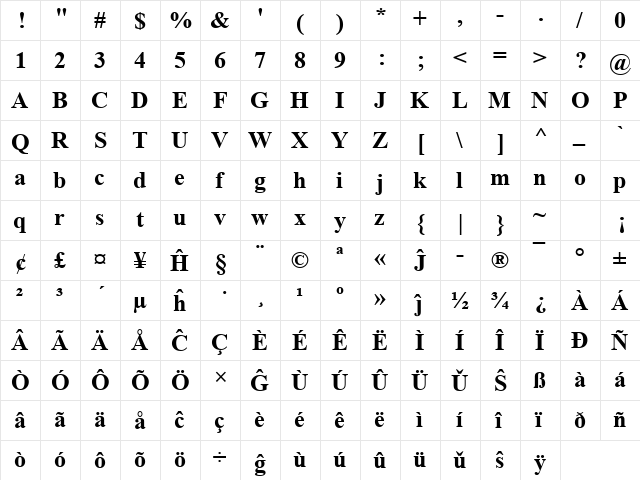
Times New Roman Eo Bold Font Preview
Times New Roman Eo Bold
Times New Roman Eo Bold Font Details
Design Context for Times New Roman Eo Typeface
Times New Roman Eo is a composed and adaptable typeface that performs quietly and consistently across a wide range of design contexts. The heavy weight commands attention and anchors typographic hierarchies.